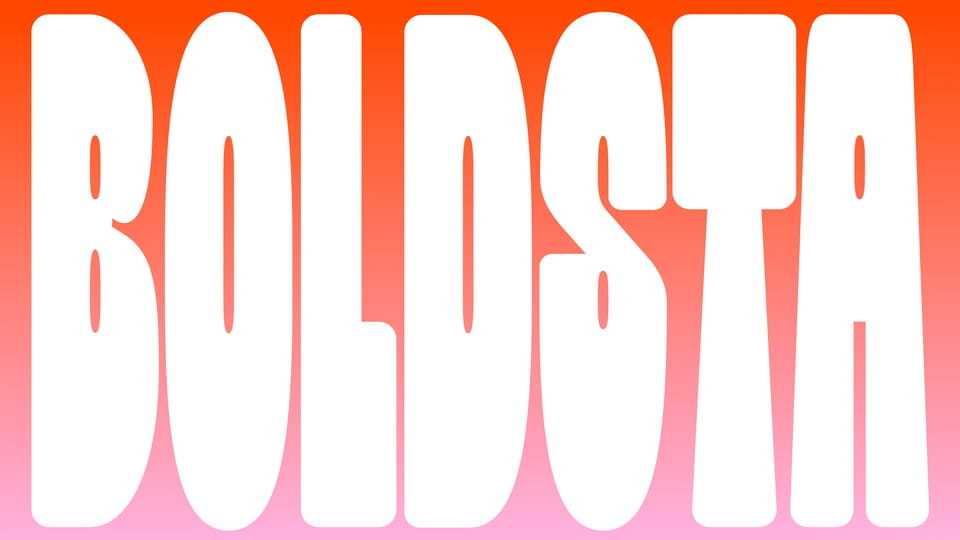
Download Boldsta Condensed font, a retro style display typeface designed with narrow proportions and a bold weight to deliver a strong, impactful display character.